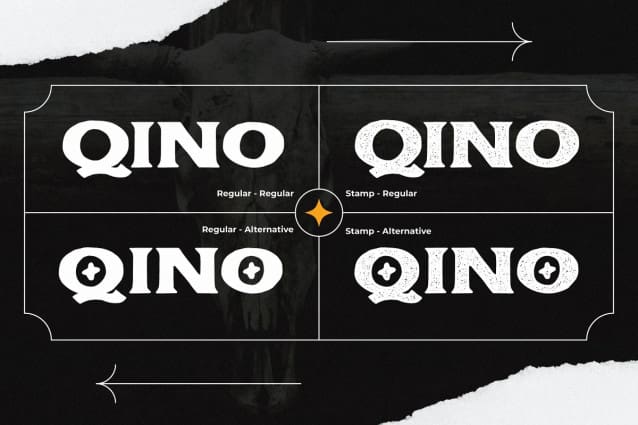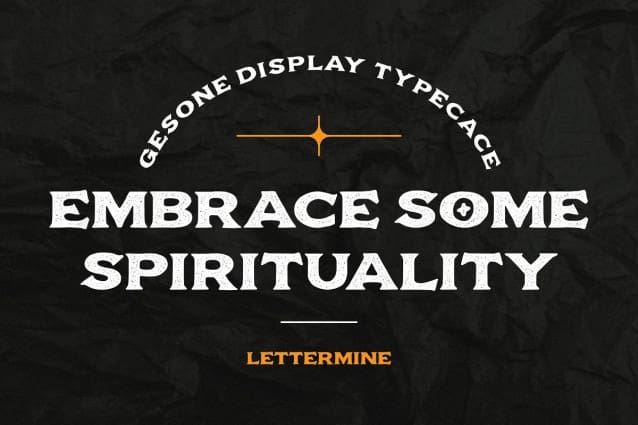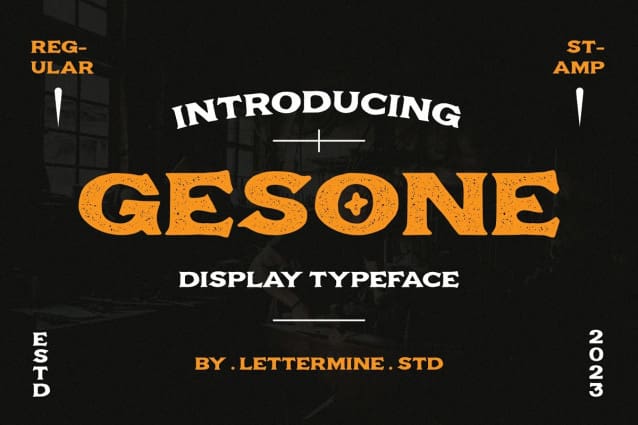
Gesone Vintage Font
Gesone Vintage Font, a captivating and versatile Vintage Serif font designed to add a touch of elegance and modernity to any project. Whether you’re designing for the fashion industry, food industry, or various celebratory occasions like weddings, birthdays, or engagements, this font is your perfect companion. With its stylish and contemporary Vintage Display Serif style, Gesone – Vintage Display effortlessly captures attention and elevates your designs to new heights.